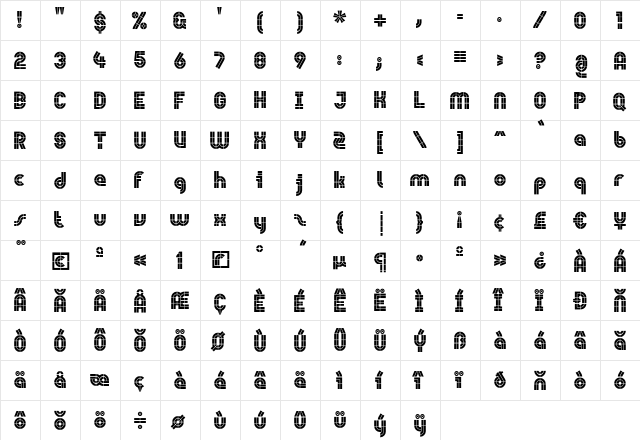
Cobra Regular
Design Context for Cobra Typeface
Cobra is a composed and adaptable typeface that performs quietly and consistently across a wide range of design contexts.